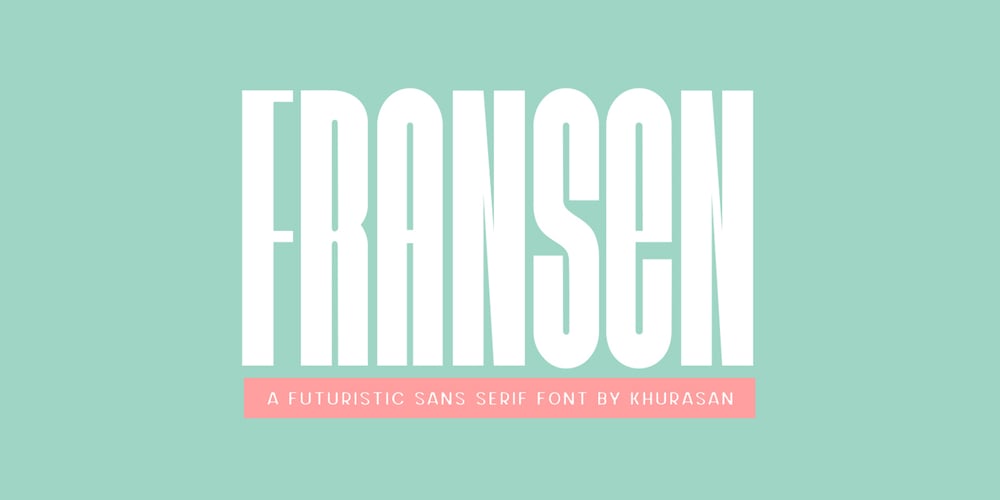
Fransen Font Family was designed by Syaf Rizal and published by Khurasan. Fransen contains 1 styles and family package options. Introducing Fransen Typeface – a bold sans serif font that is very fresh and unique style handmade. Fransen Typeface is perfectly suited to logo, stationery, poster, apparel, branding, wedding invitation, card, tagline, layout design, and much more !!